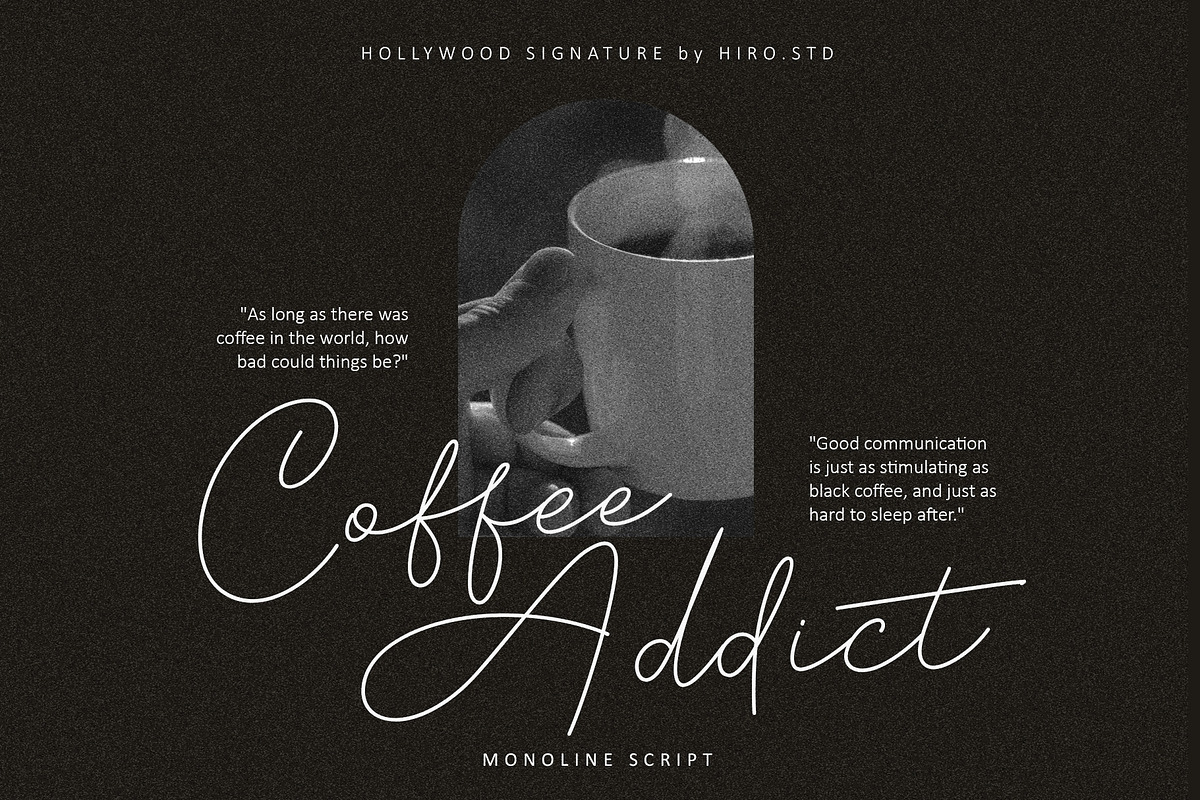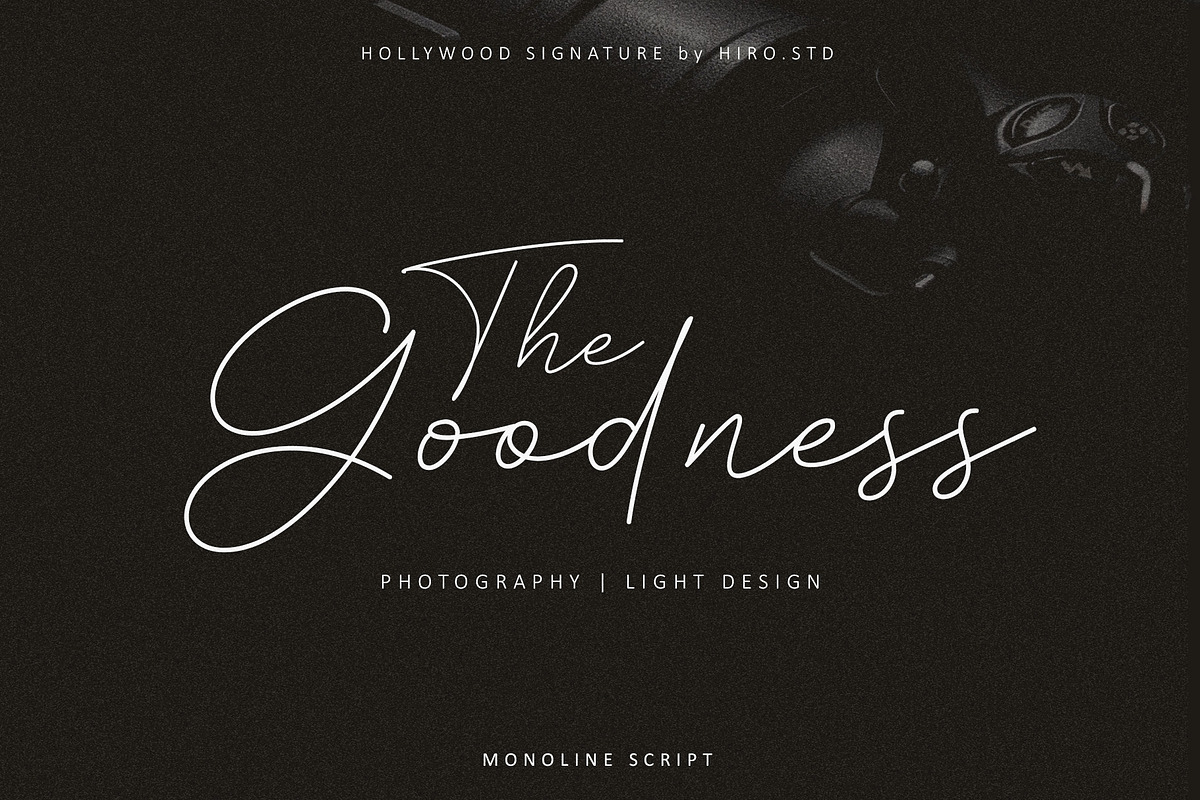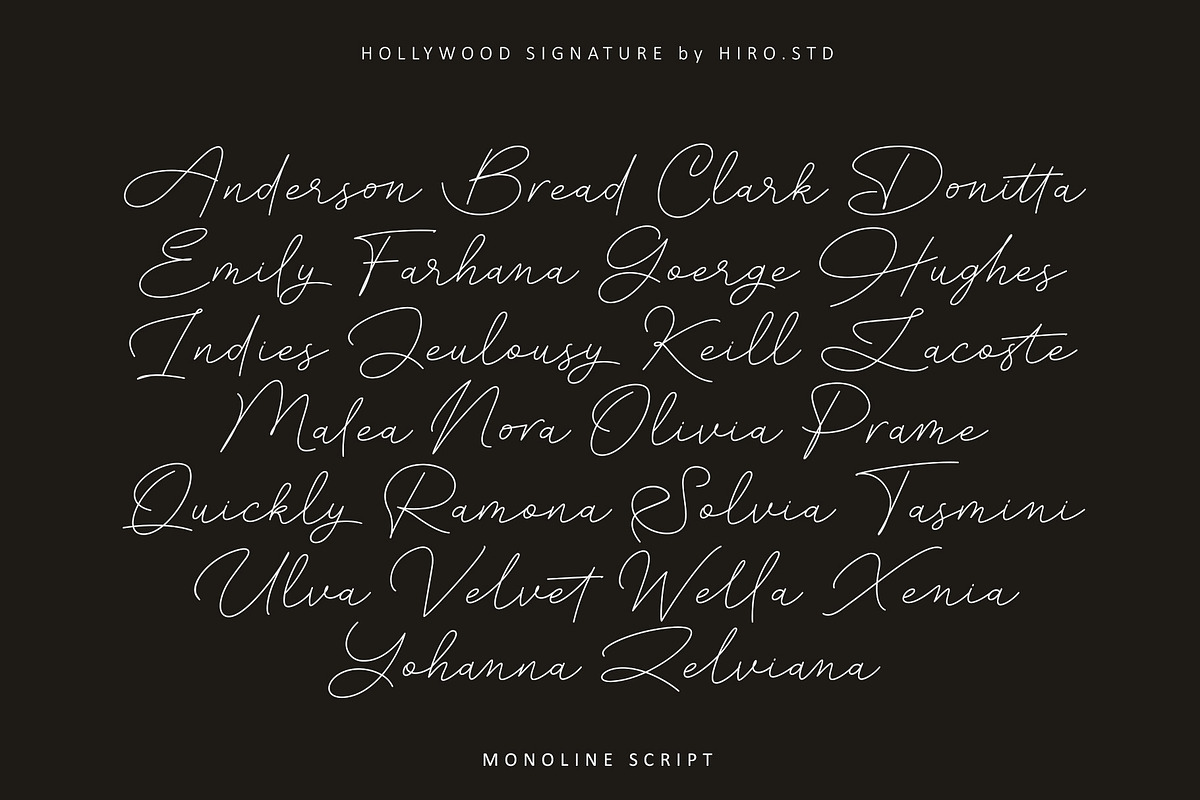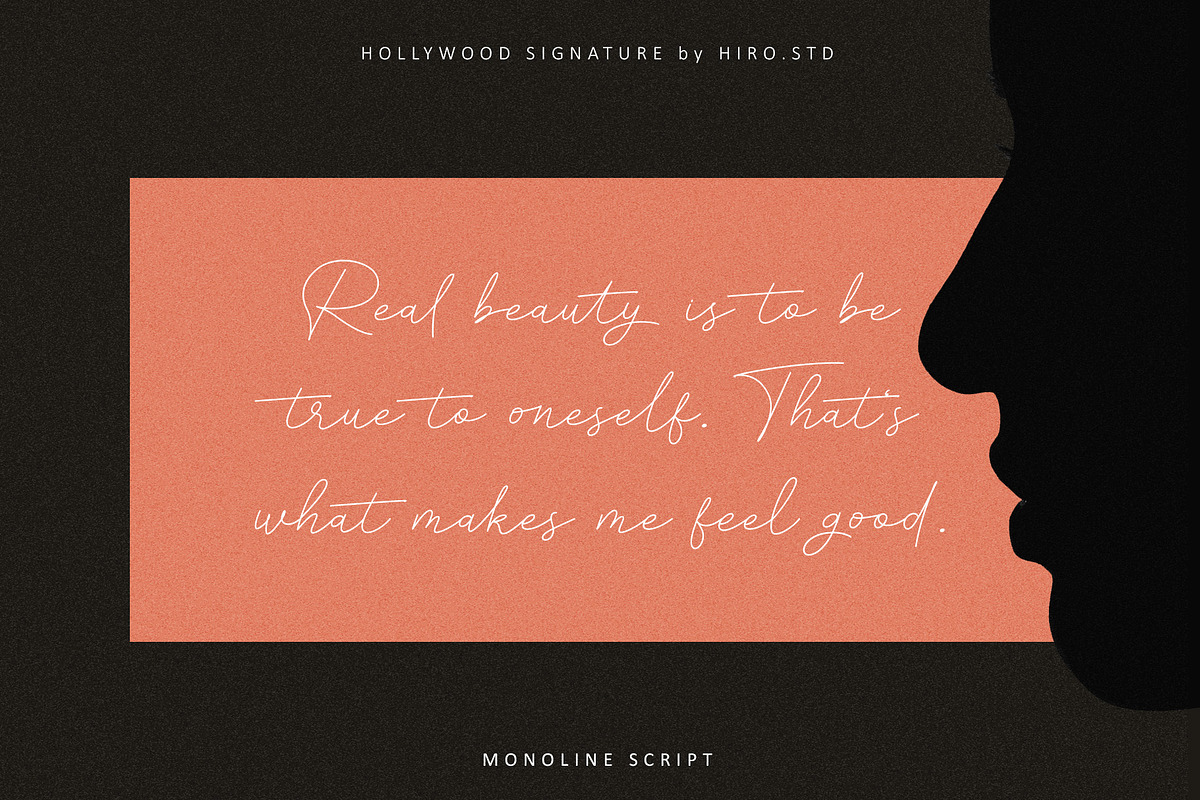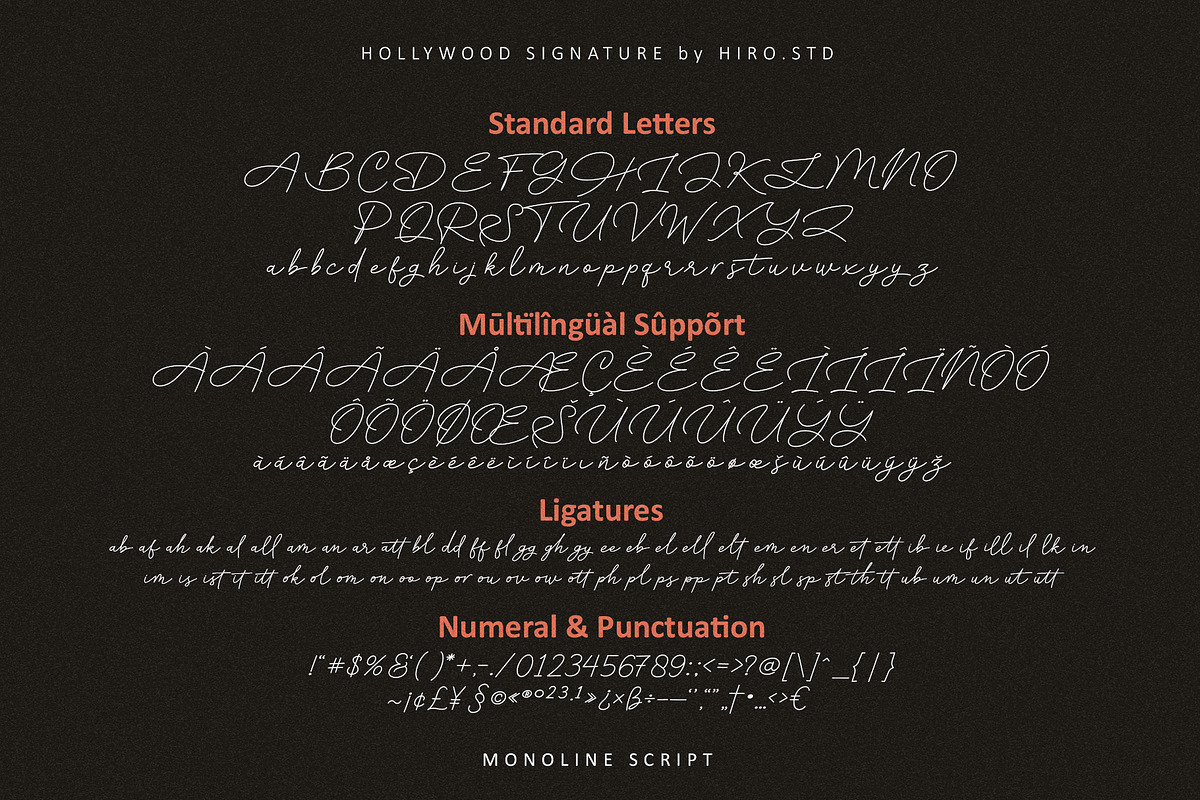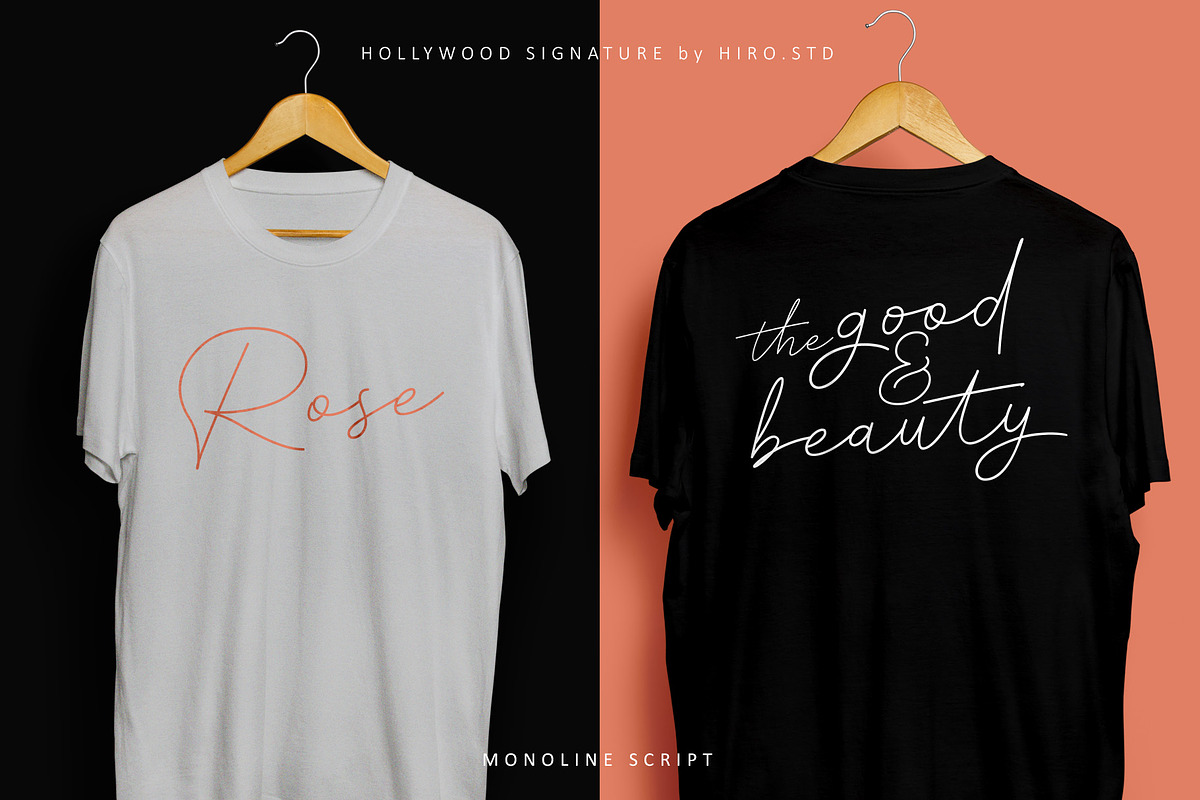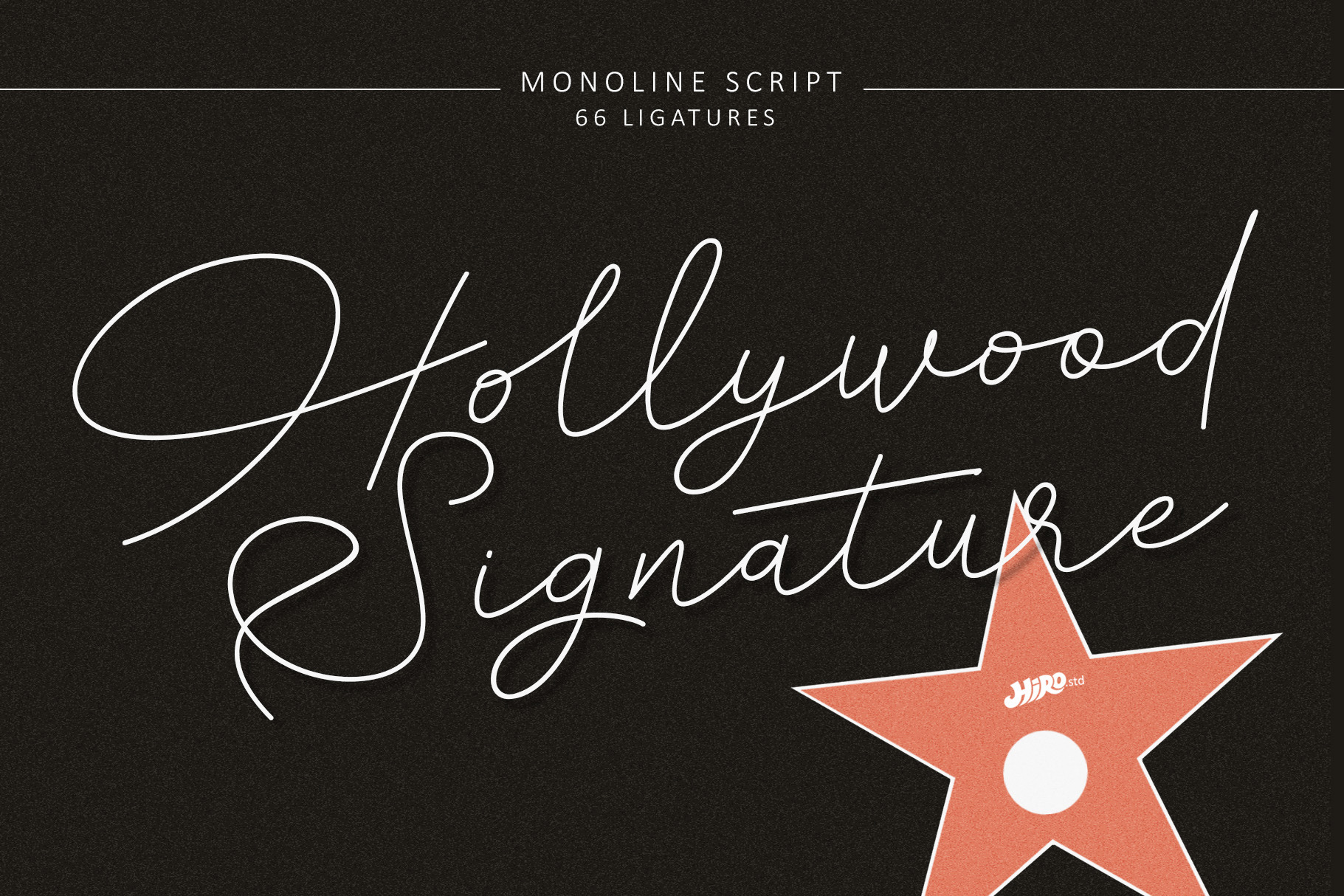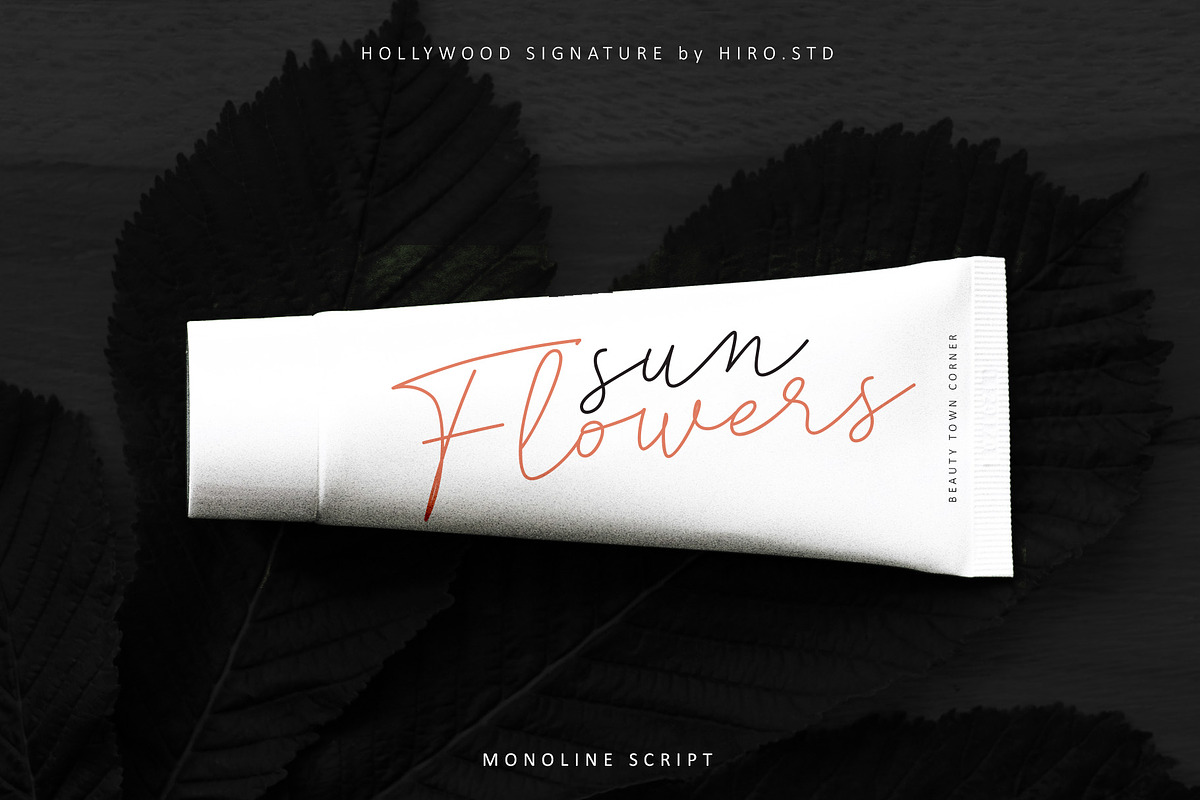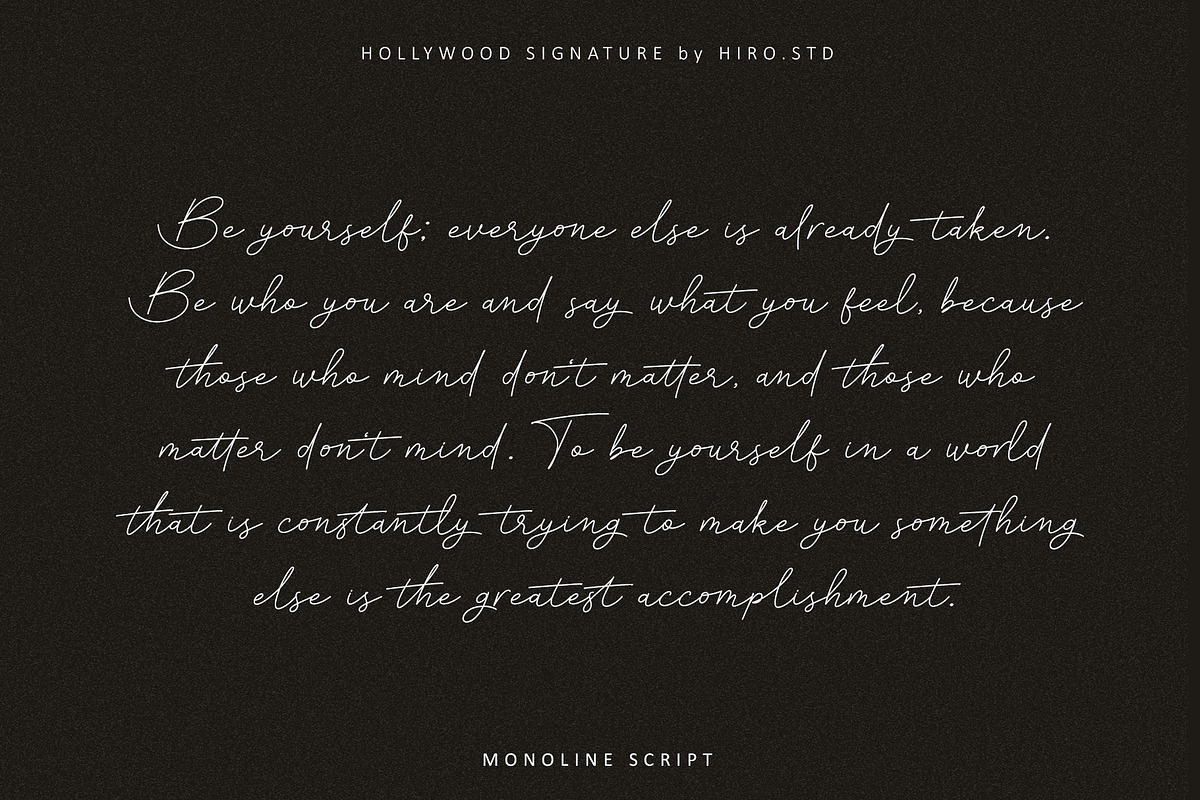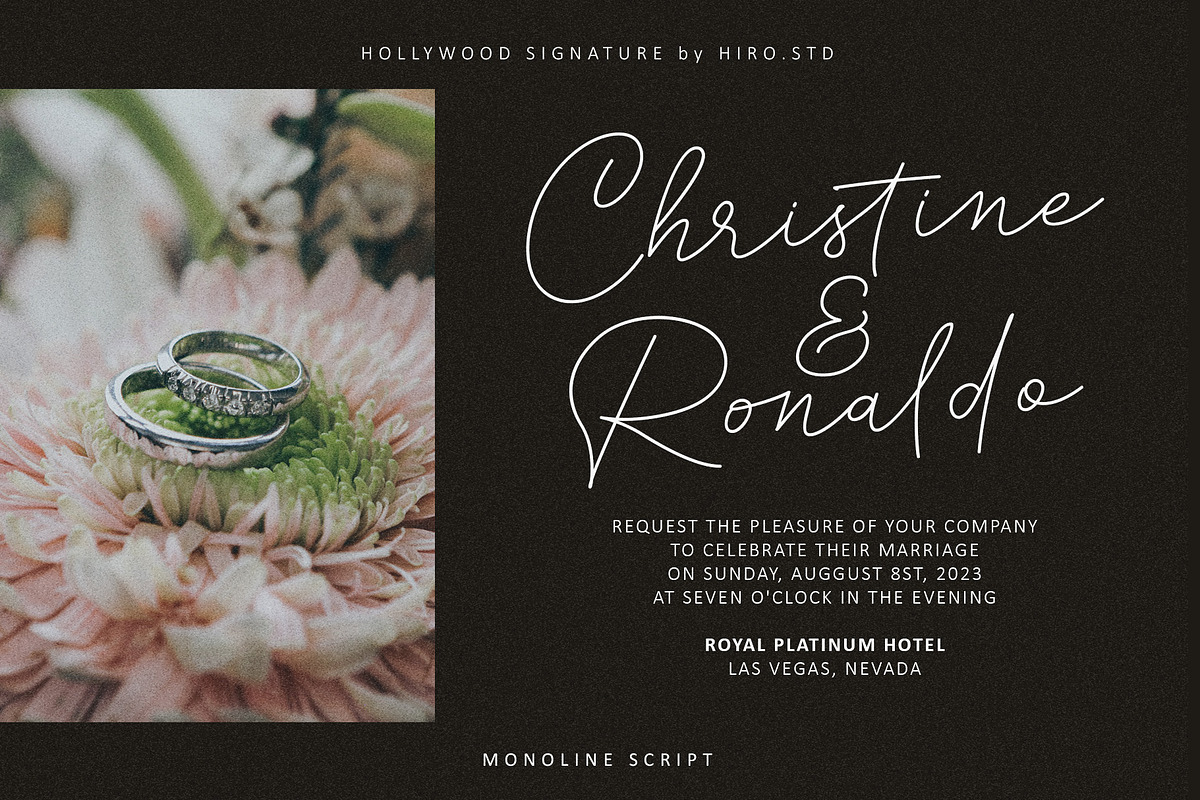
Hollywood Signature Monoline Font
Hollywood Signature is Monoline Font.
This font describes about casual, classy, fashion, women, stylish, dynamic, easy to use and will bring a good harmony when the letters are connected and paired each other.
- Uppercase and lowercase letters
- 66 Opentype Ligatures
USE Hollywood Signature works great in any wedding invitation, merchandise, stationery, magazines, product packaging, logotype, quotes and any projects that need all about love script taste.